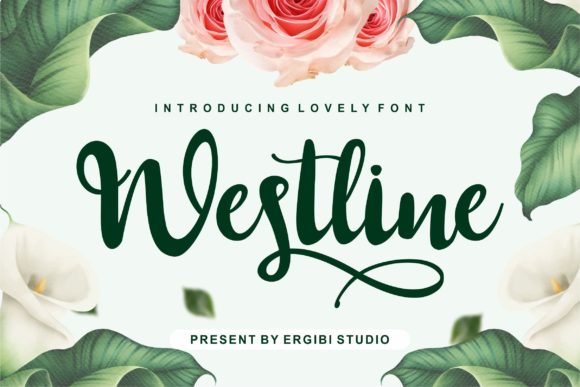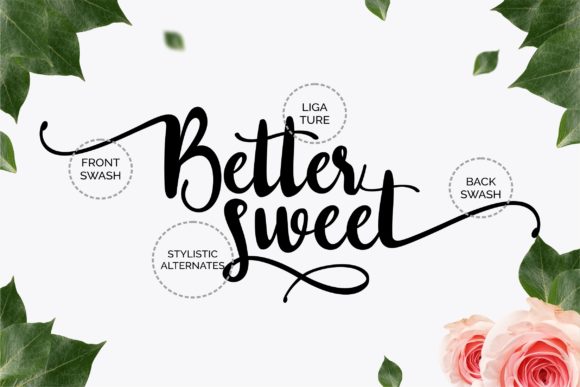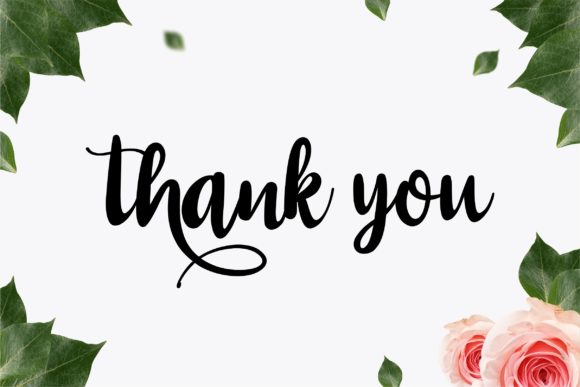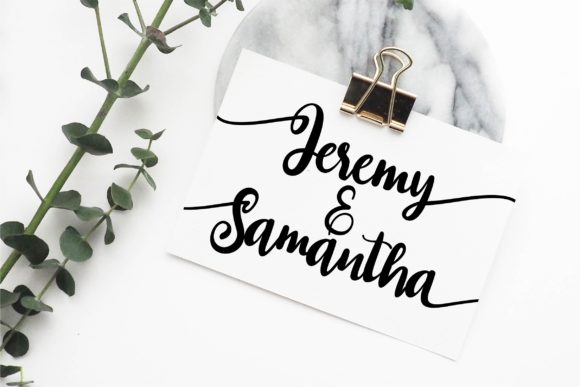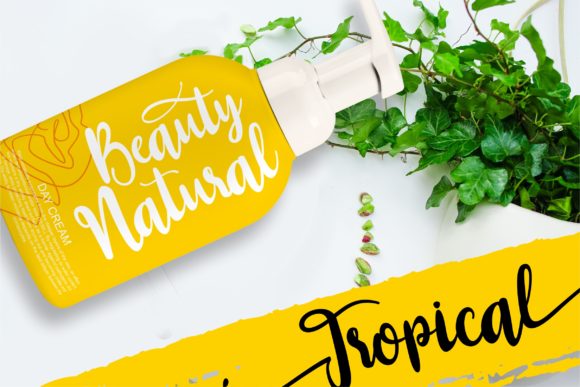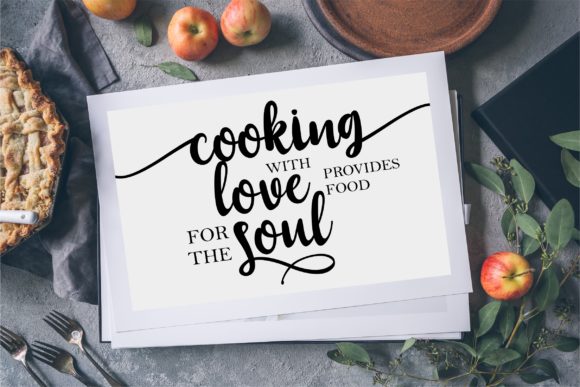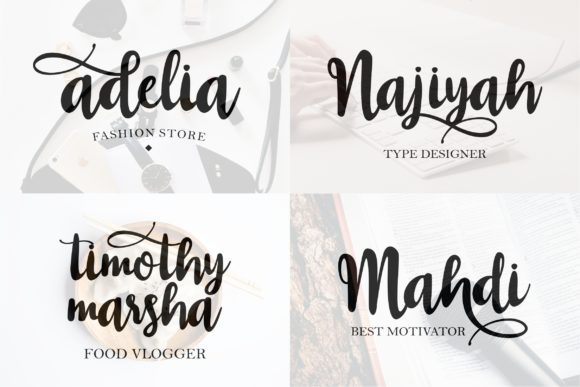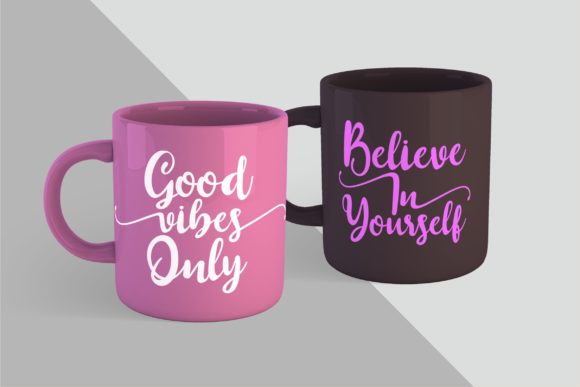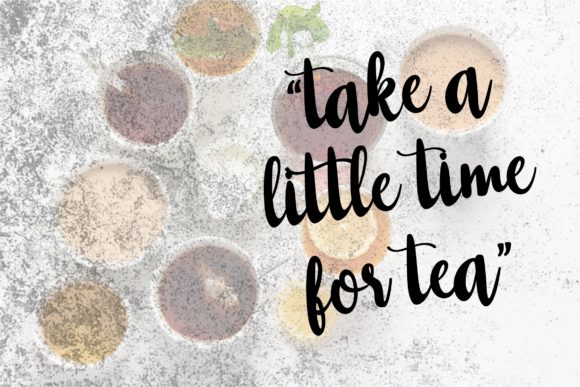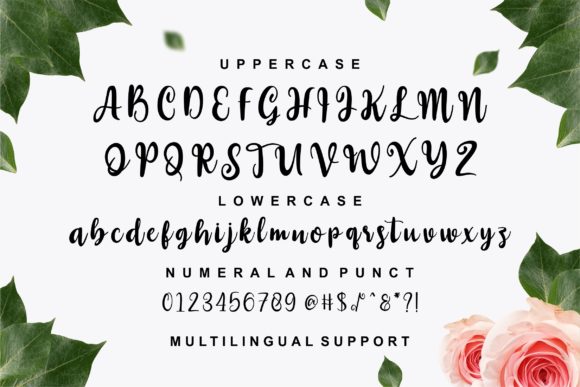
HomeScript FontsWestline Font Script Fonts Westline Font FacebookXPinterestWhatsApp Westline Font Poster 2 Westline Font Poster 3 Westline Font Poster 4 Westline Font Poster 5 Westline Font Poster 6 Westline Font Poster 7 Westline Font Poster 8 Westline Font Poster 9 Westline Font Poster 10 Westline Font Poster 11 About Westline Font Westline is a fun and cool handwritten font with a lovely look. DOWNLOAD ON CREATIVE FABRICAThis font is sold and delivered by Creative Fabrica. Font Canyon may earn a commission if you buy through this link. People also explored Alina Font Kids Navy Triblend Bella Canvas 3413Y Special Wedding Font Aroma Monogram Font Coney Island Normal Signature Font Gooey Gumdrops Font Hexer – Modern Slab Serif Font Cheonggye Font 317 0 TagsWestline Font Previous articleEdfander FontNext articleMariagata Font LEAVE A REPLY Cancel reply Comment: Please enter your comment! Name:* Please enter your name here Email:* You have entered an incorrect email address! Please enter your email address here Website: Save my name, email, and website in this browser for the next time I comment. Personal Use Free Angelika Playful Personal Use Free Read more about this font Denisha Personal Use Free Read more about this font The Royal Personal Use Free Read more about this font Strings Personal Use Free Read more about this font BLOG Modern Sans-Serif Fonts That Brands Love in 2025 In 2025, modern sans-serif fonts remain a top choice for brands looking to project clarity, professionalism, and... Where to Buy American Fonts Online in 2024 Exploring Font Trends Fonts That Capture the Spirit of New York City